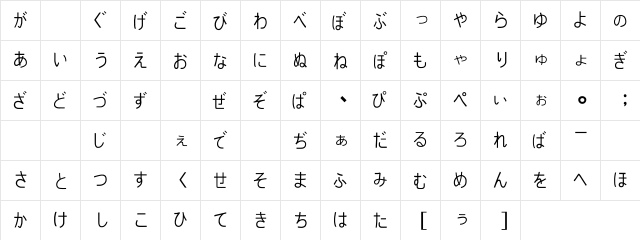
PJ Hiragana Normal
Design Context for PJ Hiragana Typeface
PJ Hiragana offers clean, dependable letterforms without strong stylistic allegiance, making it a practical choice for designers who need flexibility.